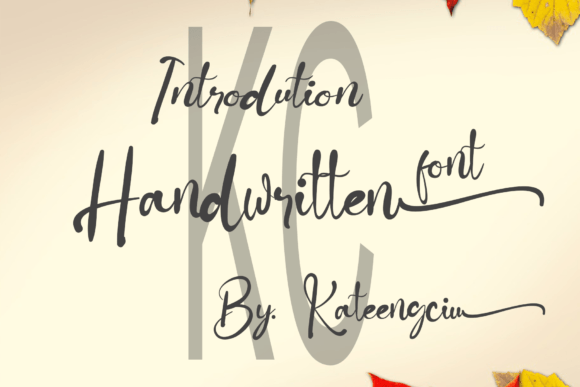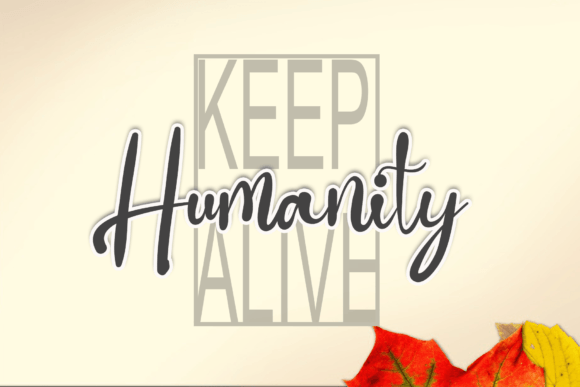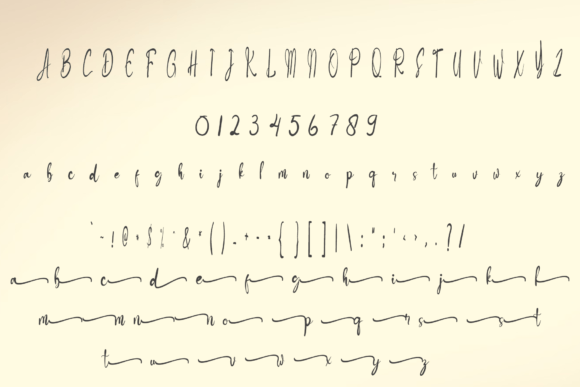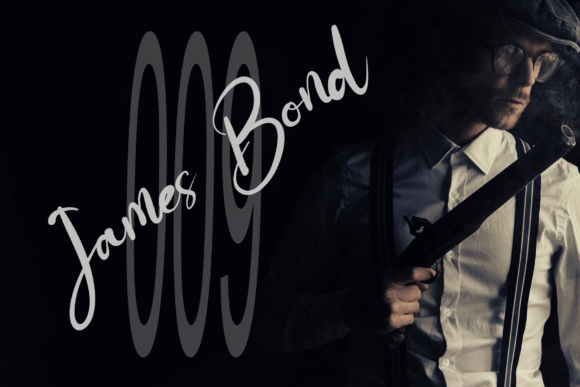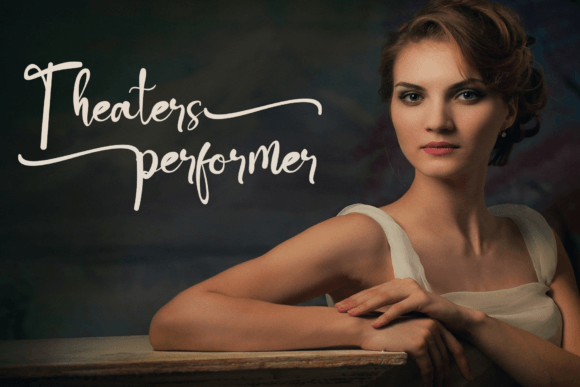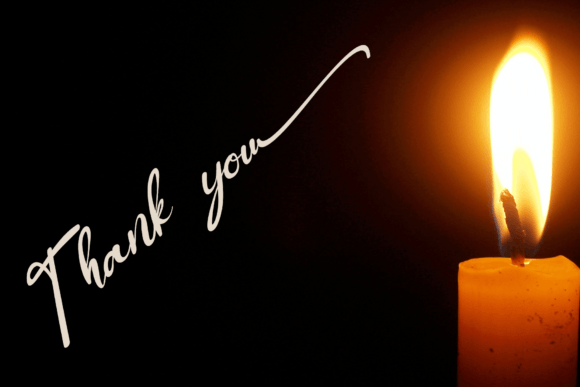
Introducing Butterfuul Font: The Sweet and Romantic Script Font for Designers and Crafters
Are you looking for a font that can add a touch of sweetness and romance to your designs? Look no further than Butterfuul Font, a beautiful script font that features stunning curves in each letter. This gorgeous font is perfect for designers and crafters who want to create beautiful and eye-catching projects that exude love and elegance.
What Makes Butterfuul Font Special?
Butterfuul Font is a sweet, romantic, and beautiful script font that is designed to make your designs stand out. Here are some of its key features:
- Beautiful Curves: Each letter in Butterfuul Font features beautiful curves that give it a unique and elegant look. The curves are smooth and flowing, making it perfect for creating romantic and whimsical designs.
- PUA Coded: Butterfuul Font is PUA (Private Use Area) coded, which means that you can access all the glyphs and sweeps easily. This makes it easy to use and customize the font to suit your design needs.
Butterfuul Font is perfect for designers and crafters who want to create beautiful and unique projects. Here are some ideas for using this gorgeous font:
- Wedding Invitations: Use Butterfuul Font to create beautiful and romantic wedding invitations that will set the tone for the big day.
- Stationery: Create gorgeous stationery, including notebooks, journals, and greeting cards, using Butterfuul Font.
- Digital Art: Use Butterfuul Font to add a touch of elegance and sophistication to your digital art projects.
- Crafting: Butterfuul Font is perfect for crafters who want to create beautiful and unique projects, such as scrapbooking, iron-on designs, and more.
Tips for Using Butterfuul Font
Here are some tips for using Butterfuul Font to get the most out of this beautiful script font:
- Experiment with Sizes: Butterfuul Font looks great in a variety of sizes, so experiment with different sizes to find the one that works best for your design.
- Pair with Other Fonts: Butterfuul Font pairs well with other fonts, so try pairing it with a bold font for a striking contrast.
- Use in Combination with Images: Use Butterfuul Font in combination with images to create stunning and eye-catching designs.
Butterfuul Font is a beautiful and elegant script font that is perfect for designers and crafters who want to add a touch of sweetness and romance to their designs. With its stunning curves and PUA coding, this font is easy to use and customize. Whether you’re creating wedding invitations, stationery, digital art, or crafting projects, Butterfuul Font is the perfect choice. So why wait? Download Butterfuul Font today and start creating beautiful and unique designs that will leave a lasting impression.